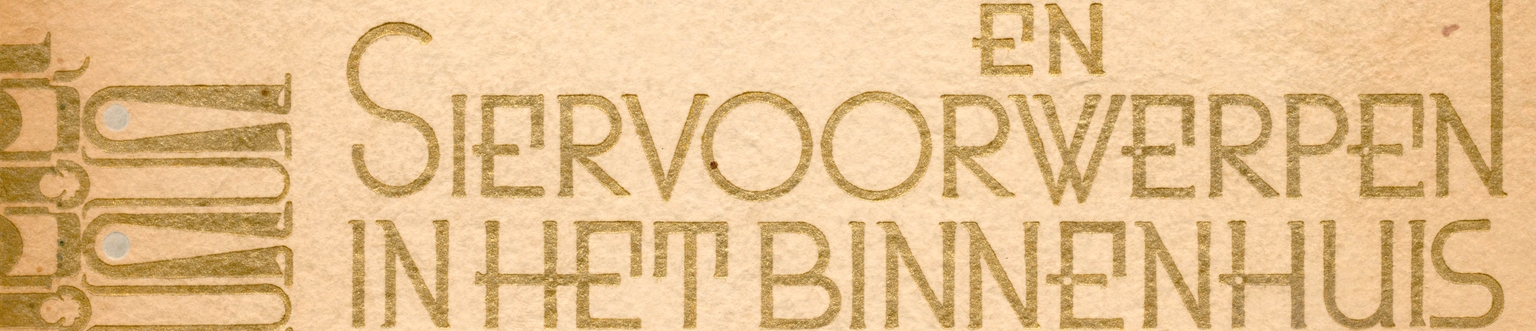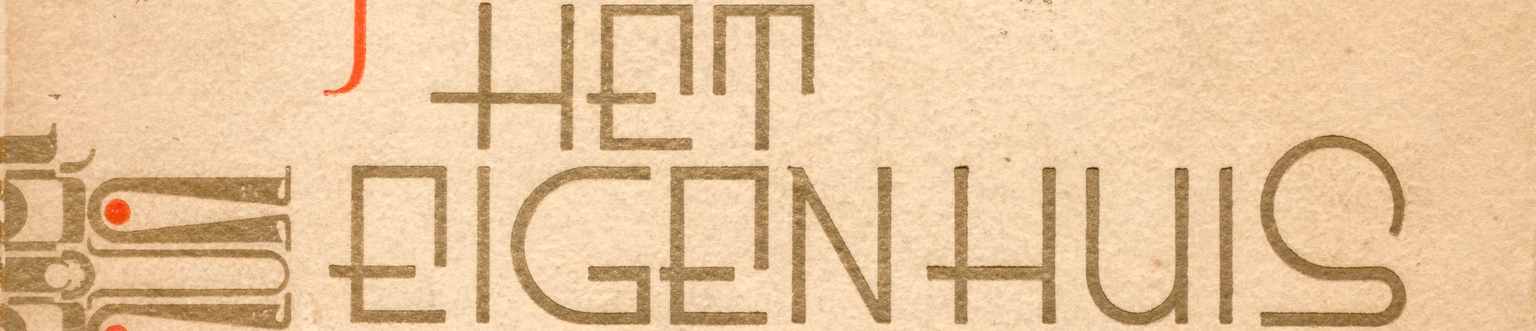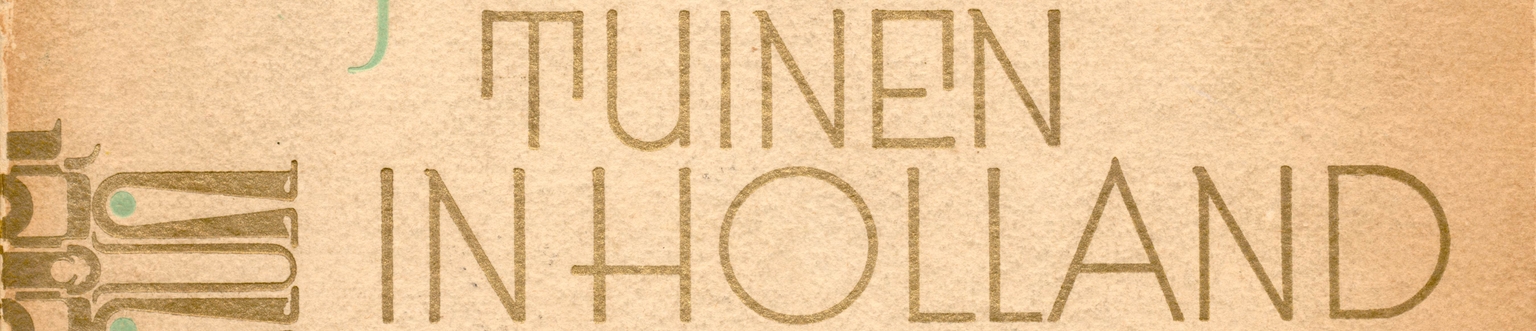
Aktie
Aktie is a display typeface designed by Paula Mastrangelo and Ramiro Espinoza, inspired by the alphabet created by Dutch designer Anton Kurvers (1889–1940) for the architecture book series Moderneschoonheid, published by Kosmos Uitgevers in Amsterdam between 1931 and 1933. Emerging within the context of interwar modernism, Kurvers’ lettering presents a light, elegant, Deco-inflected approach defined by careful proportioning and distinctive letterforms. The alphabet combines clarity with unconventional shapes, reflecting the commercial yet experimental character of early twentieth-century Dutch design.
Aktie is the fifth installment in the Kurvers’ Font Collection, a series by the Brutal Types team dedicated to developing digital typefaces based on Kurvers’ most distinctive lettering alphabets. Previous releases in the collection include Kurversbrug, Omslag, Antonius, and Misiva.
Mastrangelo and Espinoza analyzed the structural principles and formal nuances of the original characters and translated them into a contemporary digital typeface. Rather than creating a strict facsimile, they refined the geometry, regularized spacing, and expanded the character set to meet current typographic standards, while preserving the identity and constructive logic of the source.
Aktie is well suited for book covers, film titles, posters, editorial design, exhibitions, packaging, websites, branding, and cultural projects that call for a modernist typographic voice grounded in historical research and systematic design thinking.